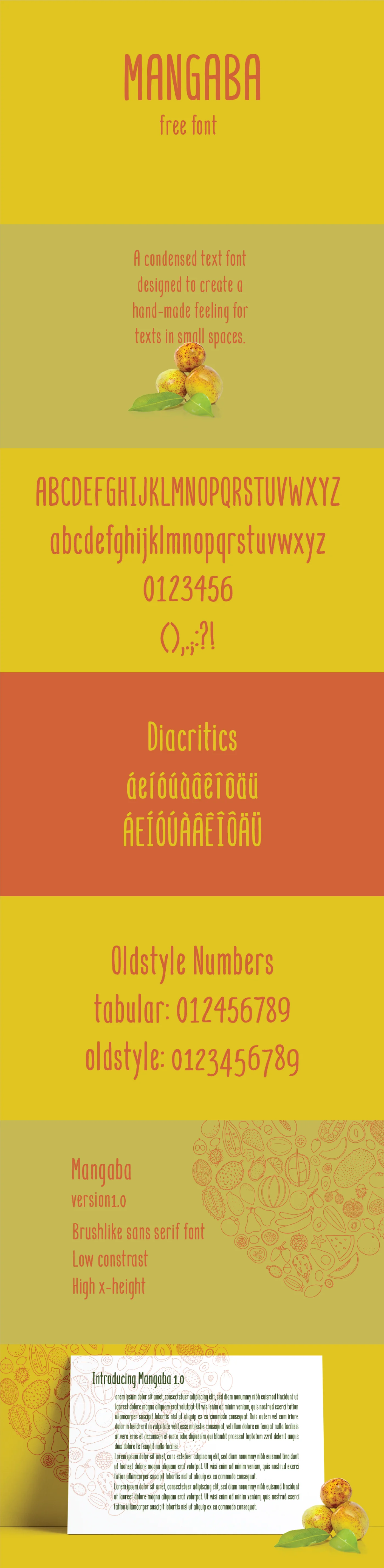
MANGABA - FREE HAND DRAWN FONT
Introducing Mangaba from Eliezer Grawe. Mangaba is a free hand drawn font that features a slightly condensed look for great usability. It includes upper and lowercase characters, basic punctuation, numbers and many international characters as well.